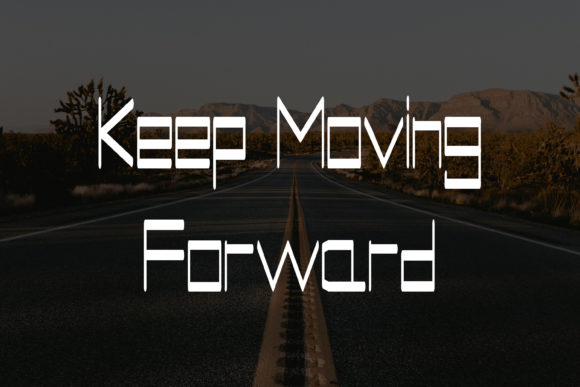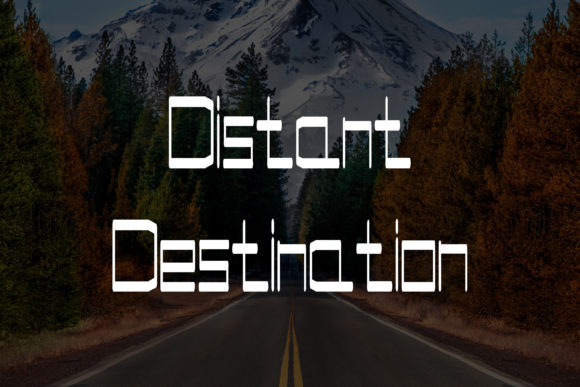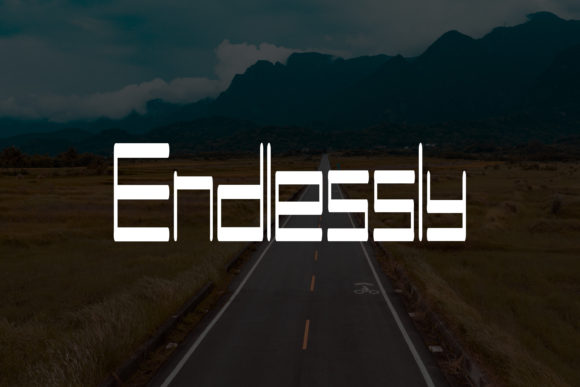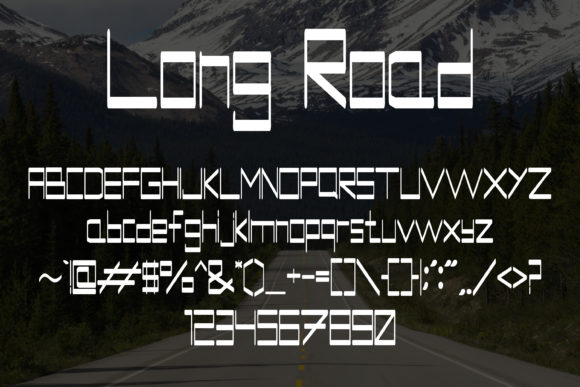
Introduction to Long Road Font
Have you ever stared at a blank canvas, your mind racing with ideas, and your fingers itching to bring a creative project to life? That’s exactly where I was when I stumbled upon the Long Road Font – a game-changing design resource that took my breath away. Its unique blend of cool, squared letters and robotic flair made me envision a futuristic world where typography was the ultimate form of expression.
As a designer, I know how valuable it is to have a high-quality font that can elevate any design and make it stand out from the crowd. The Long Road Font is an excellent addition to any designer’s toolkit, offering a fresh and modern look that’s perfect for web designs, business cards, or any project that requires a touch of innovation.
Not only is this font a great design resource, but it’s also free to download and can be easily customized to fit your needs. With its transparent background and sleek, modern aesthetic, the Long Road Font is sure to become a staple in your design arsenal.
Key Features of Long Road Font
- High-quality design resource ideal for creative projects, including signage, logos, and branding materials.
- Includes a transparent background, allowing for easy customization and integration into various design environments.
- Features a clean and modern design aesthetic, making it suitable for a wide range of creative applications.
Honest Review: Long Road Font
As a designer, I’m always on the lookout for high-quality design resources that can elevate my creative projects. The Long Road Font is one such resource that caught my attention.
One of the standout features of this font is its versatility. It’s perfect for a wide range of creative projects, from logos to editorial content. The font comes in a transparent background, making it easy to work with and customize.
- ⚠️ Limited character set, which may not be suitable for long-form content
- ⚠️ Not as extensive as some other font libraries
Overall, I’m impressed with the Long Road Font. It’s a solid design resource that’s perfect for small-scale projects. While it may not be the most comprehensive font library, it’s a great addition to any designer’s toolkit. With a little creativity, this font can add a lot of value to your creative project.
Introduction to Long Road Font
The Long Road Font is a high-quality design resource ideal for creative projects. Its transparent background makes it versatile for various applications.
Tips for Getting the Most Out of Long Road Font
To get the most out of the Long Road Font, use it in conjunction with other design elements to create a unique and eye-catching design. Experiment with different font sizes, colors, and arrangements to achieve the desired effect.
The Long Road Font is ideal for a variety of creative projects, including:
– Logos and branding materials
– Brochures and flyers
– Social media graphics and posts
– Presentations and documents
Dancing Script is a high-quality, elegant script font that’s perfect for designs that require a touch of whimsy and sophistication. It’s ideal for wedding invitations, branding, and other design resources where a transparent background is required. Dancing Script is a great alternative to Long Road Font as it offers a more fluid and dynamic feel.
Q: Does the Long Road Font come with a transparent background?
Yes, the Long Road Font is provided in a transparent background format, making it easy to use with any design resource or image. This feature allows for seamless integration with your creative project.